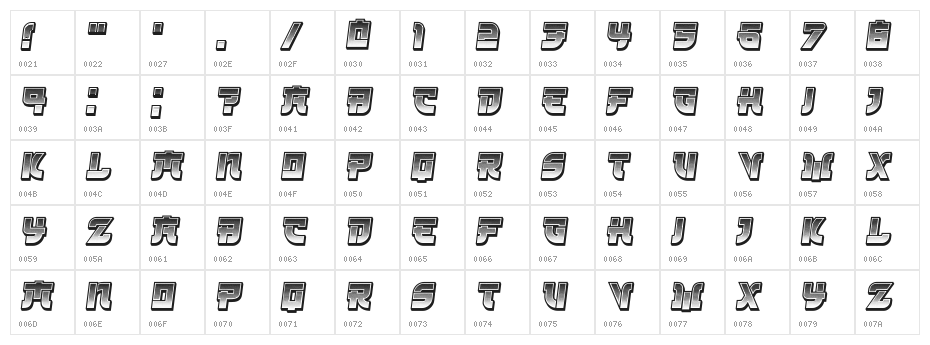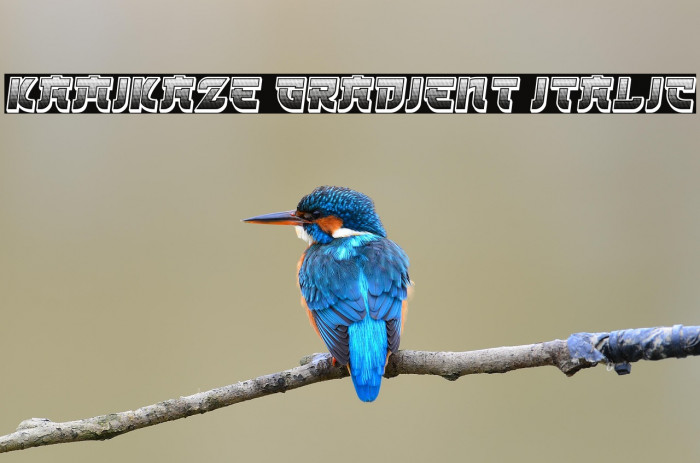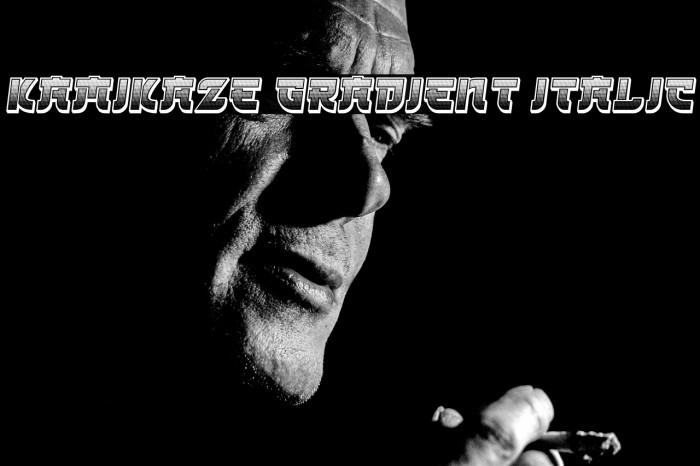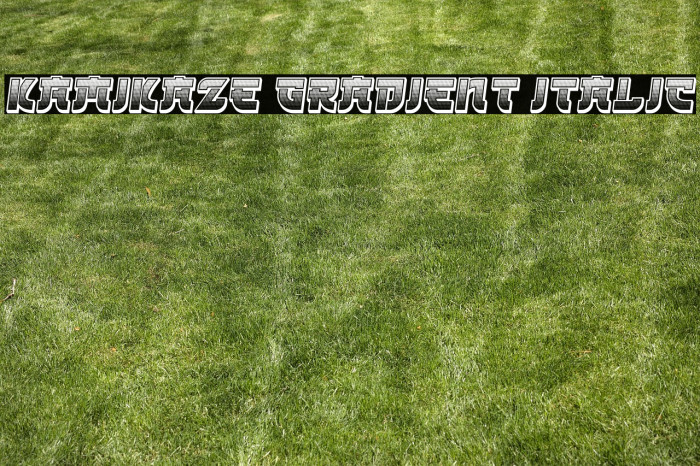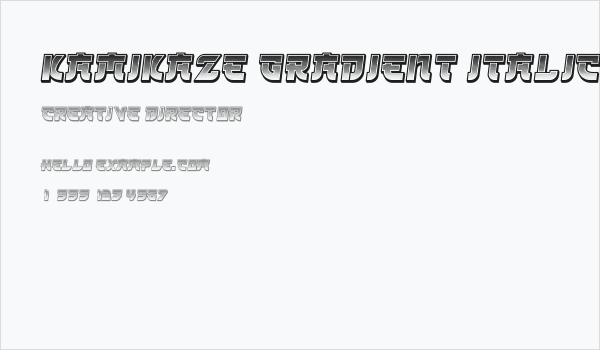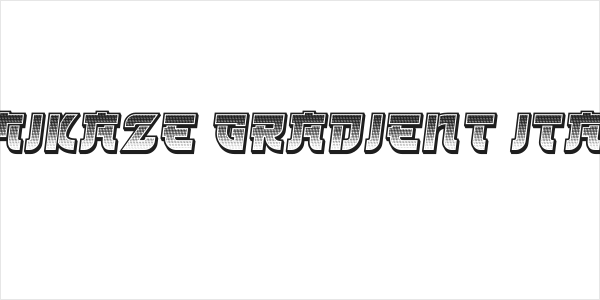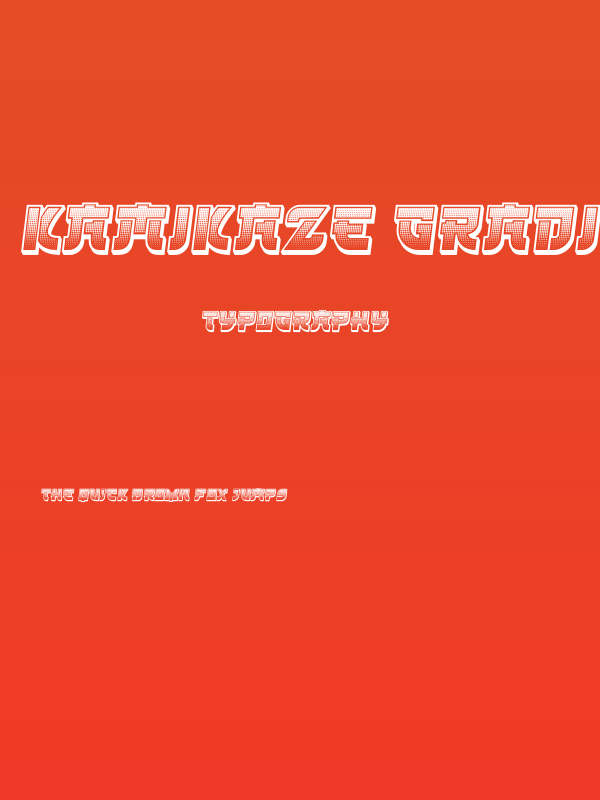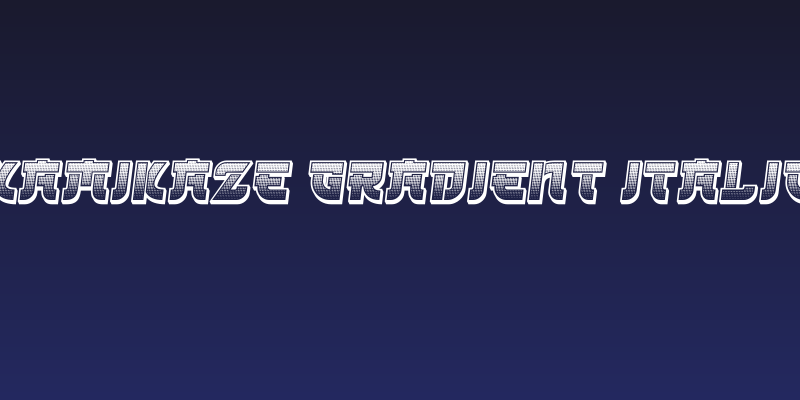
Kamikaze Gradient Italic Font
Kamikaze Gradient Italic Description
This font features a bold, dynamic style with a distinct gradient effect that gives it a three-dimensional appearance. The characters are italicized, adding a sense of motion and energy. Each letter and number is outlined with a thick border, enhancing its visibility and impact. The internal gradient pattern creates a textured look, reminiscent of retro or comic book styles. This font is highly decorative, making it suitable for attention-grabbing designs. The uppercase and lowercase letters maintain a consistent style, ensuring uniformity across text. The special characters are designed to match the overall aesthetic, providing a cohesive look.
| Overall Style | Retro, Comic |
| Proposed Projects | Perfect for posters, comic book titles, video game graphics, and any project requiring a bold, dynamic look. |